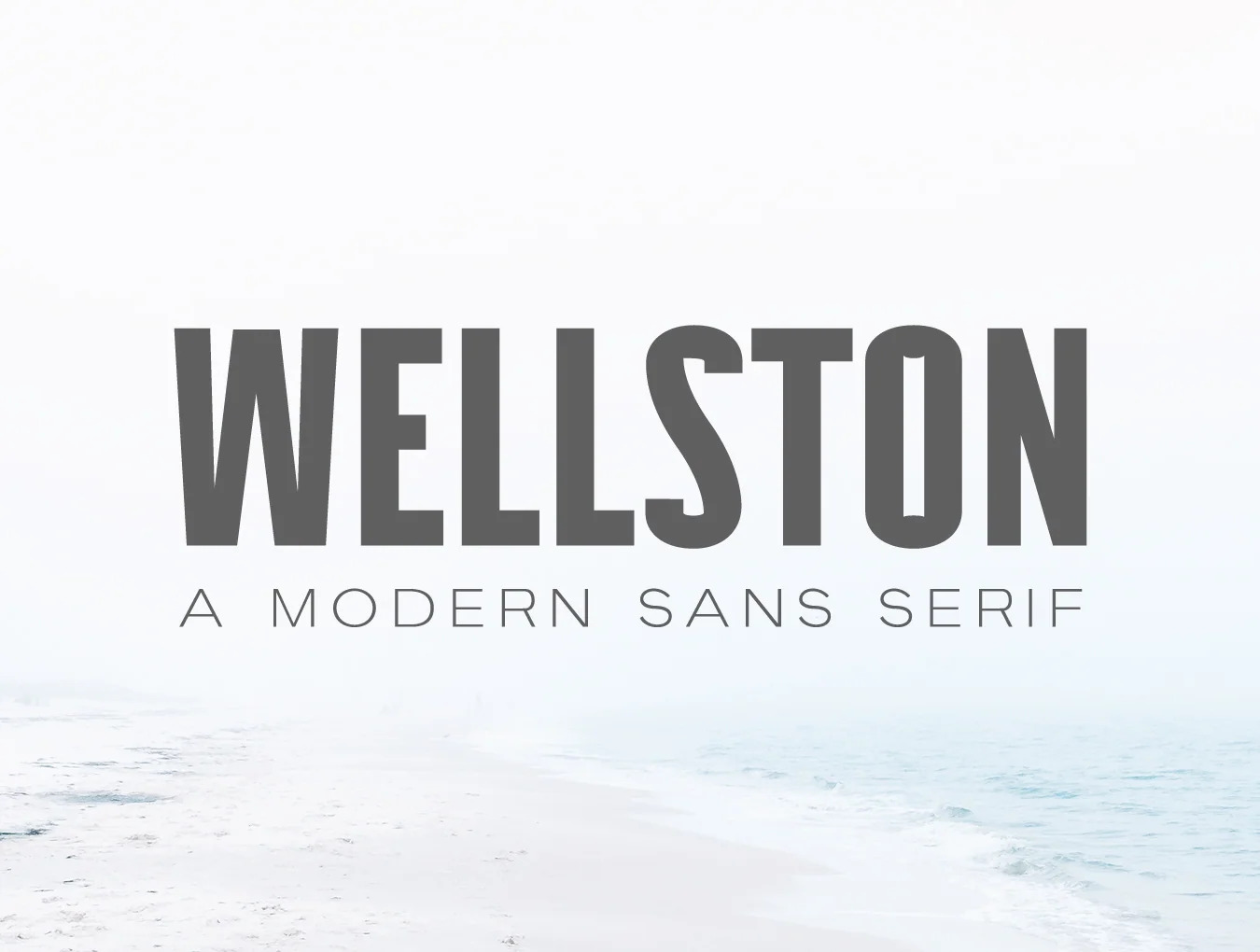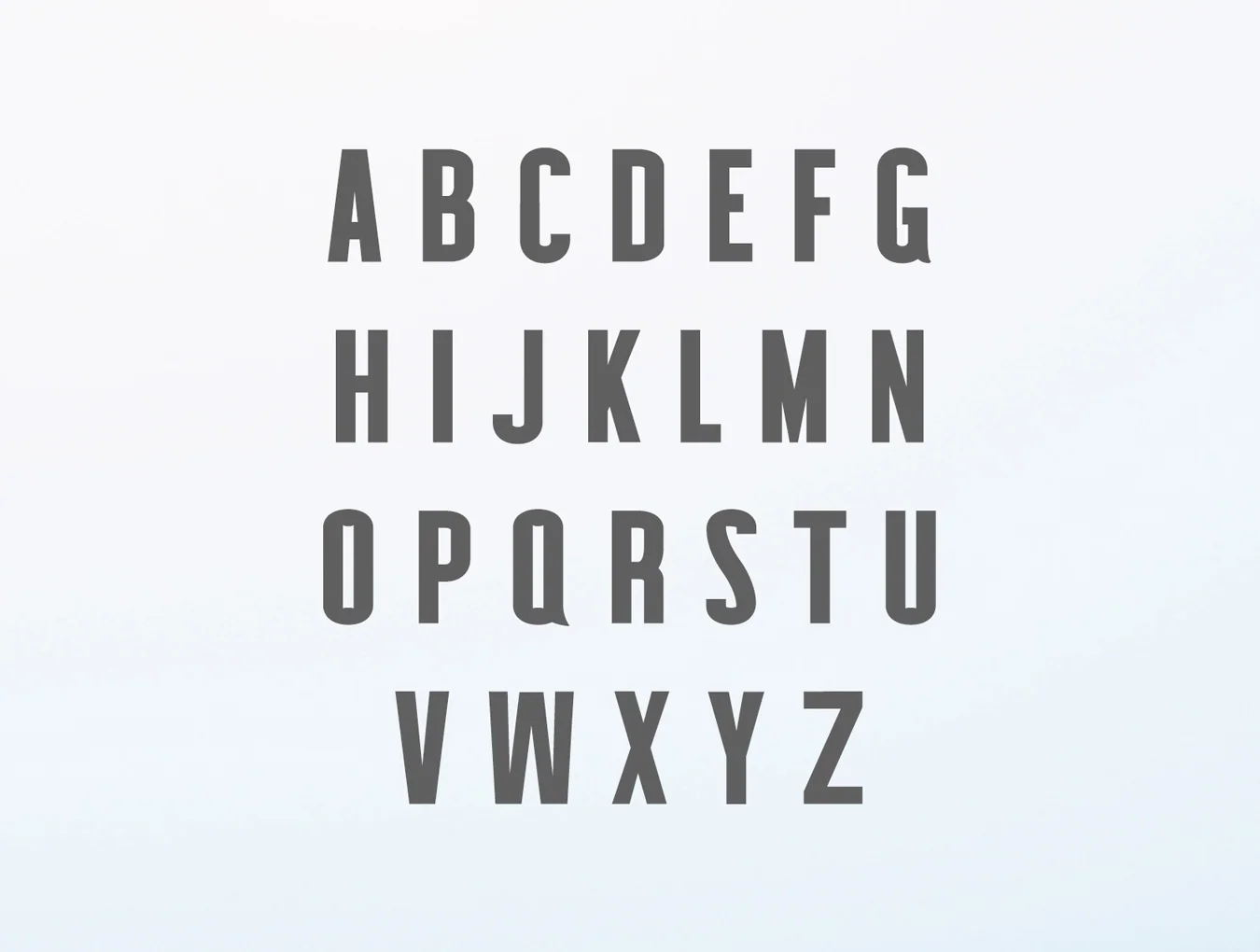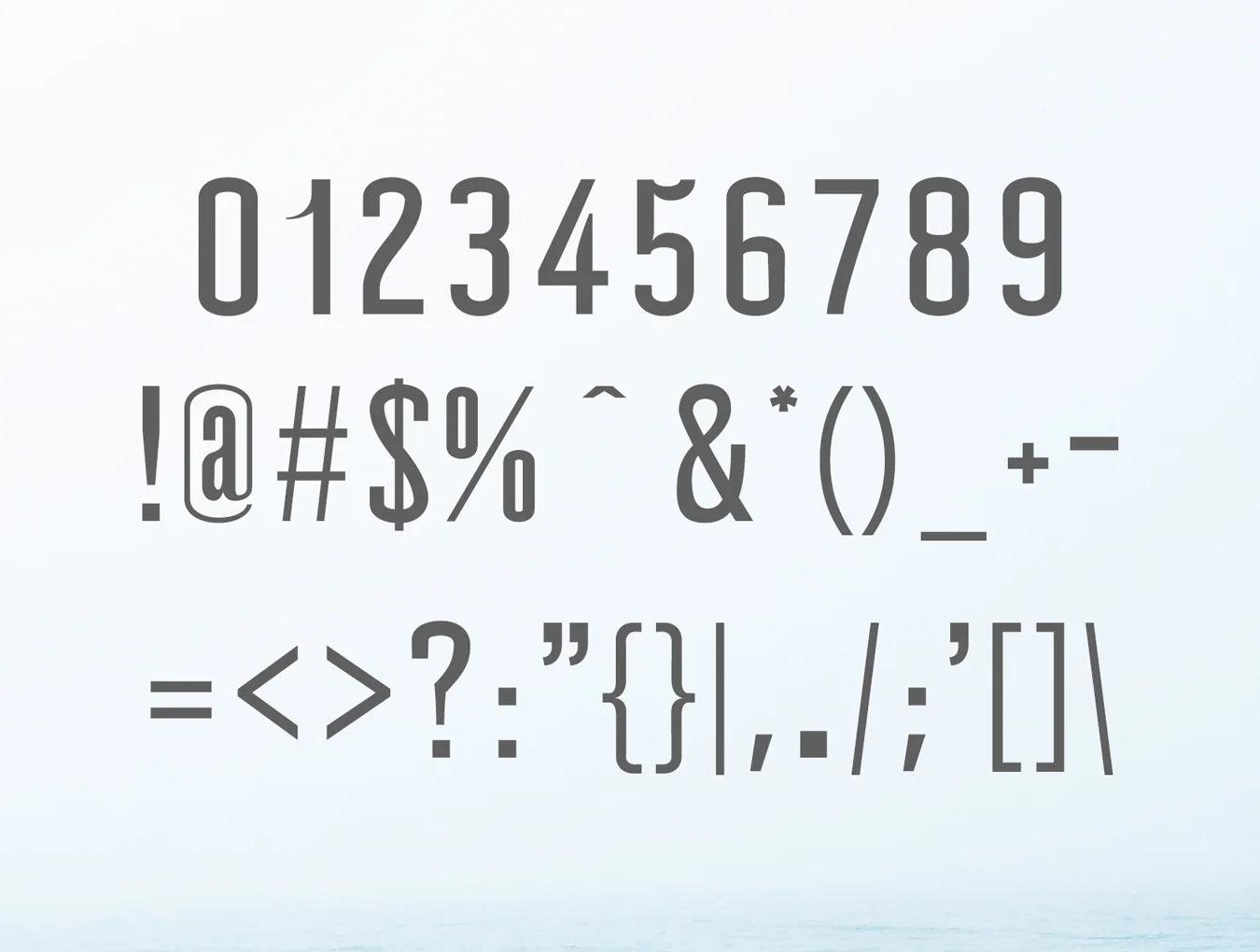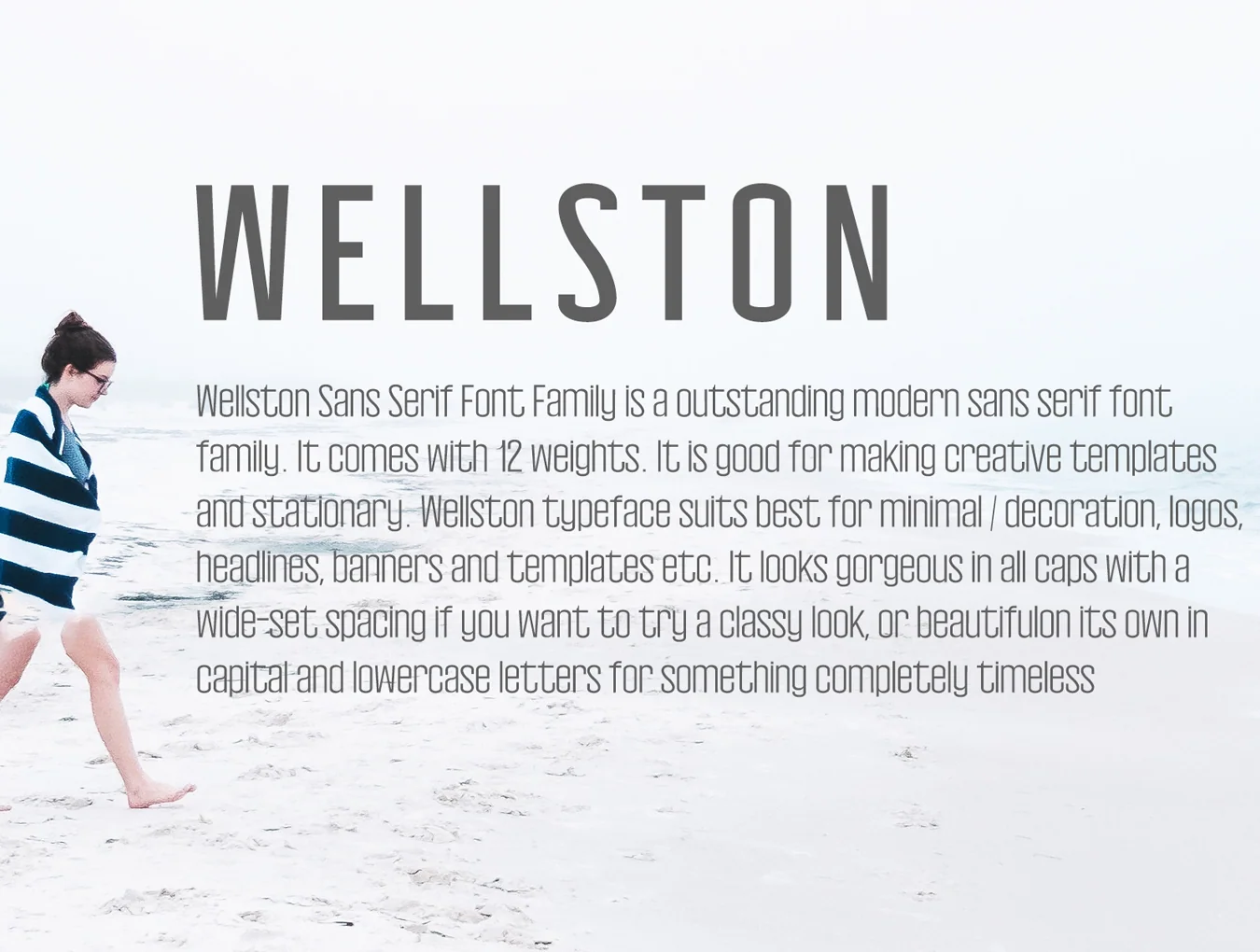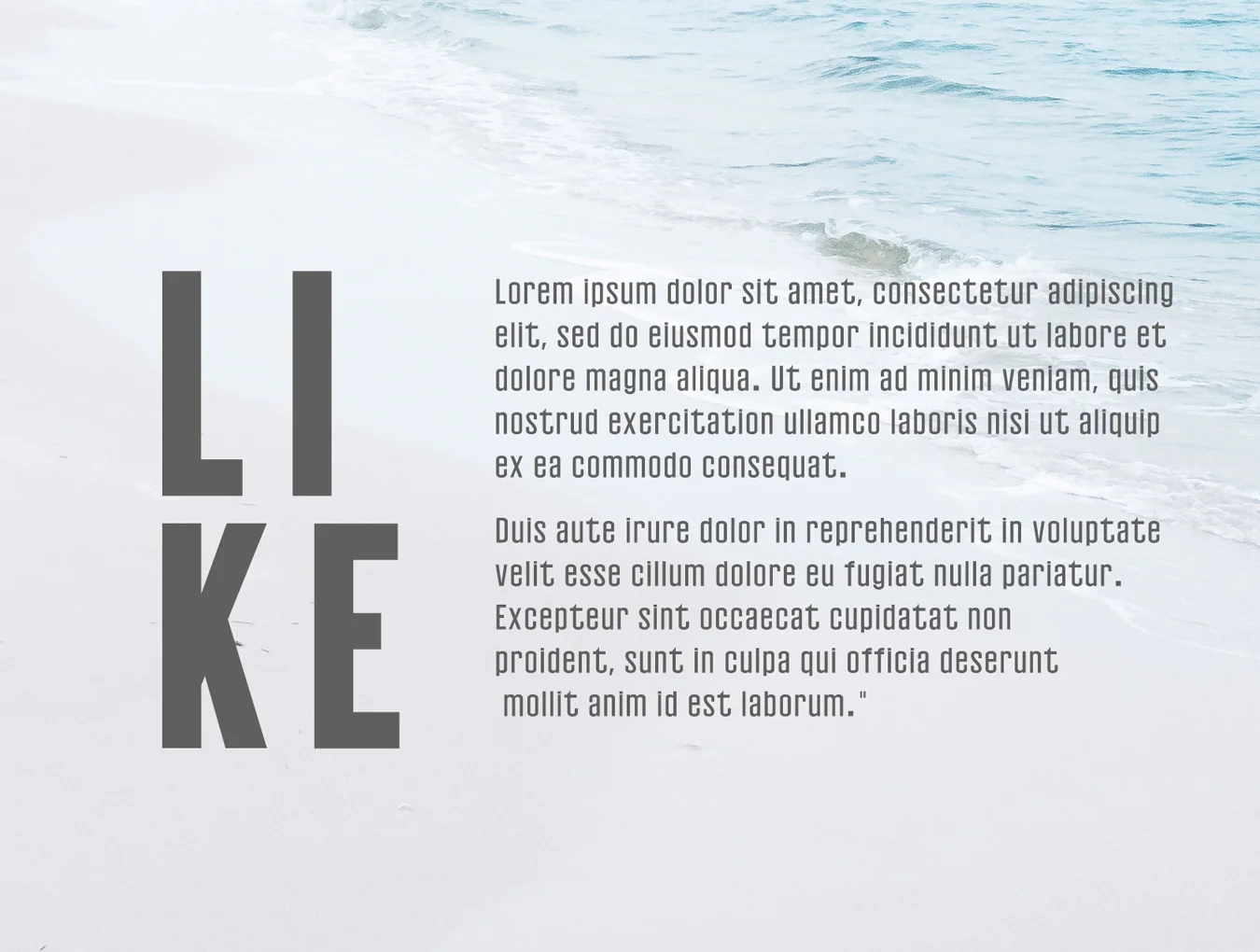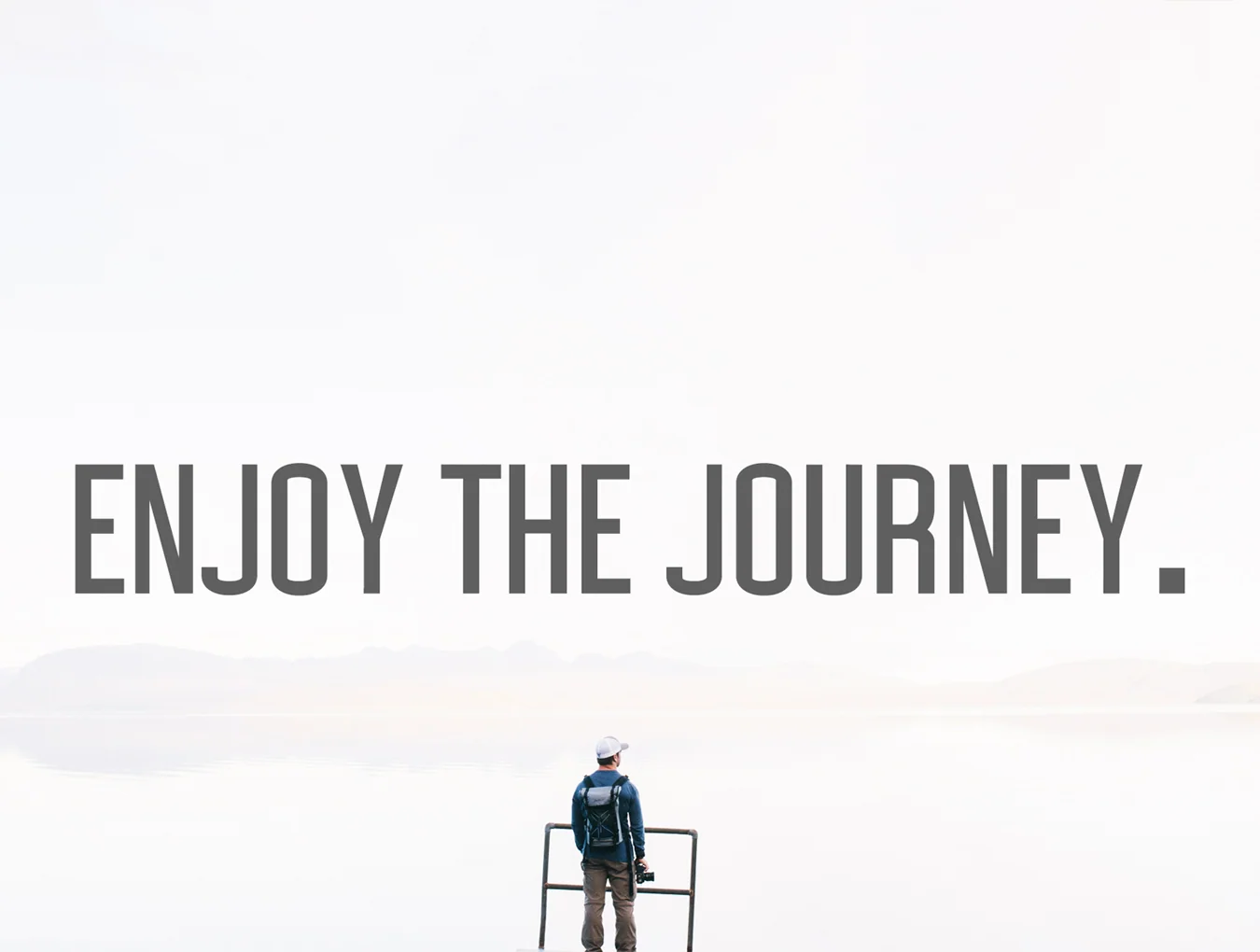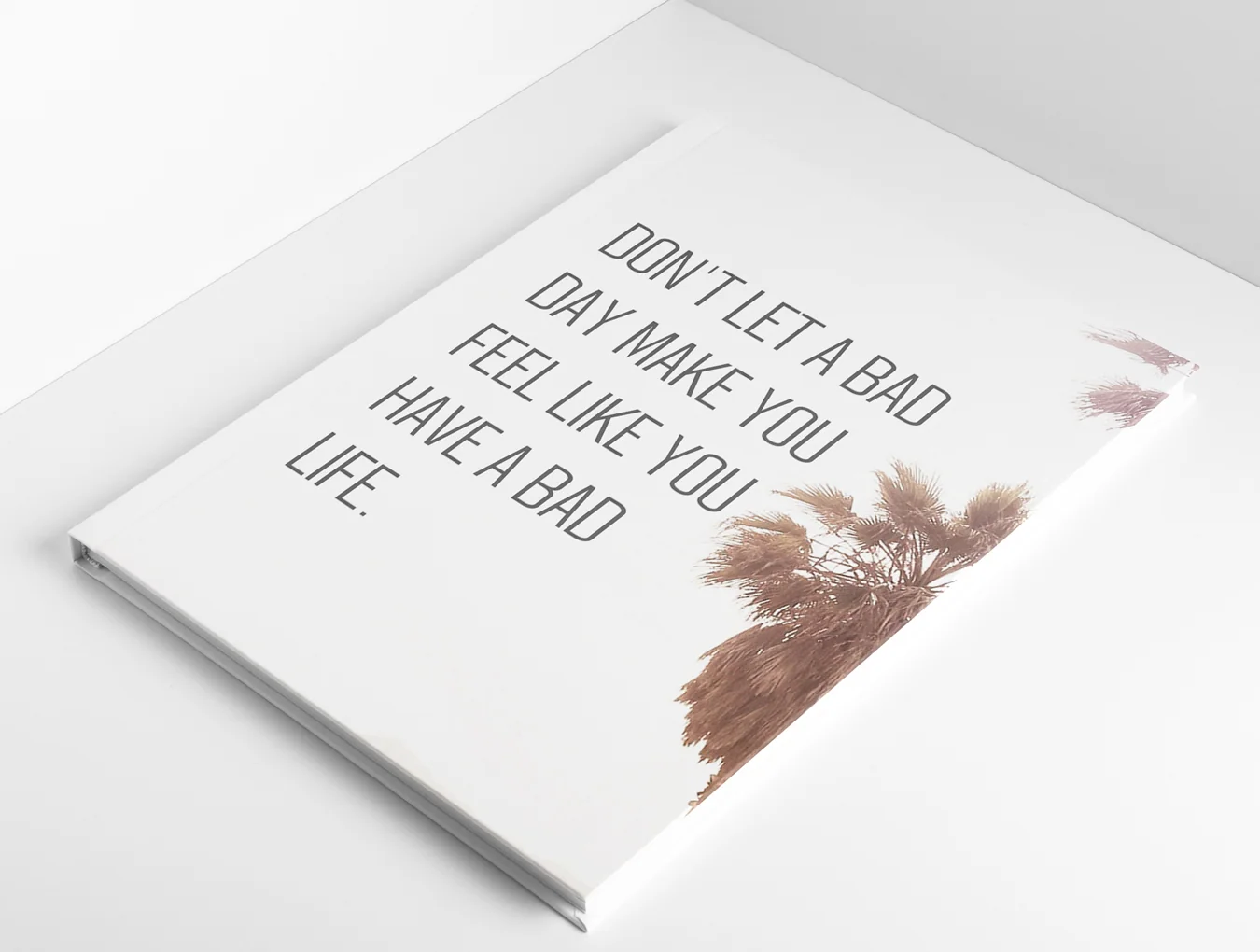
Wellston Modern Sans Serif
Sans serif font style
Capital letters, small letters, and numerals
Sans serif font style
Capital letters, small letters, and numerals
Wellston Modern Sans Serif font includes OTF, TTF, WOFF, and WOFF2 formats with 12 elegant weights. Bold yet refined, it suits logos, body text, presentations, posters, fashion layouts, magazines, branding, photography, invitations, ads, quotes, and business projects. Use wide-spaced capitals for a classy style or mixed case for a timeless look.